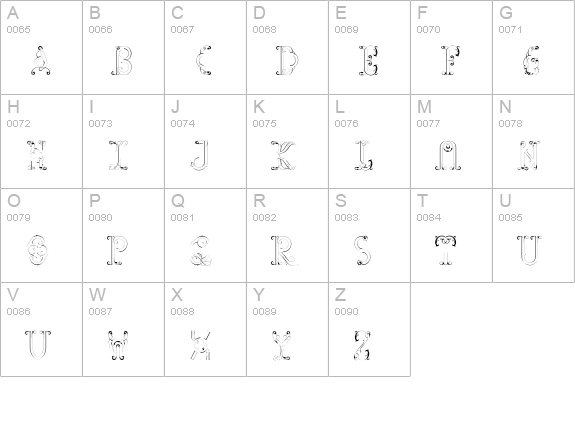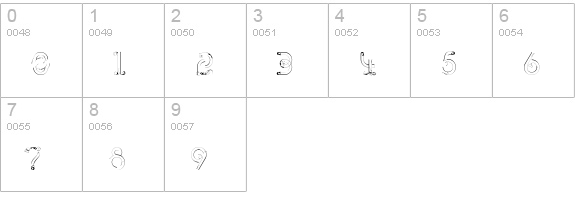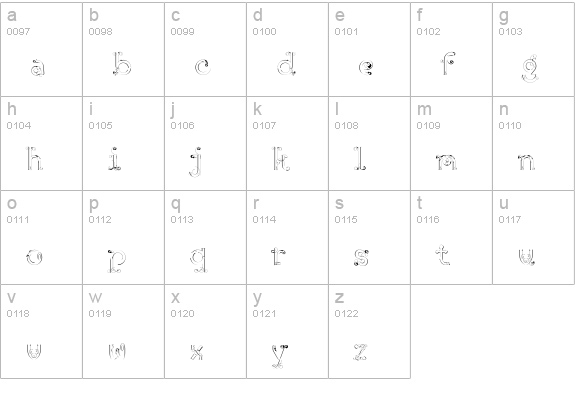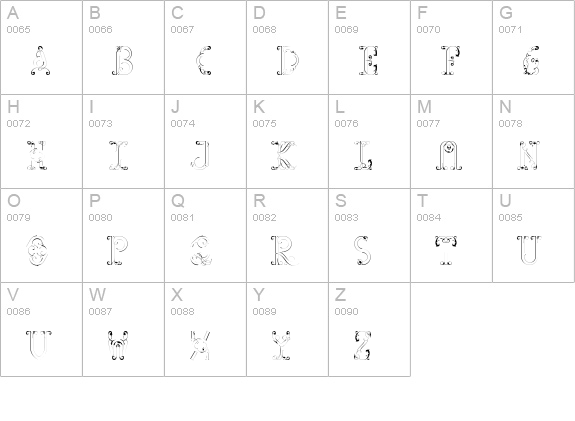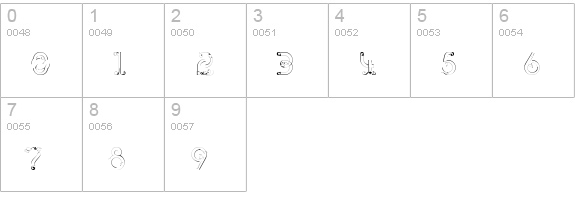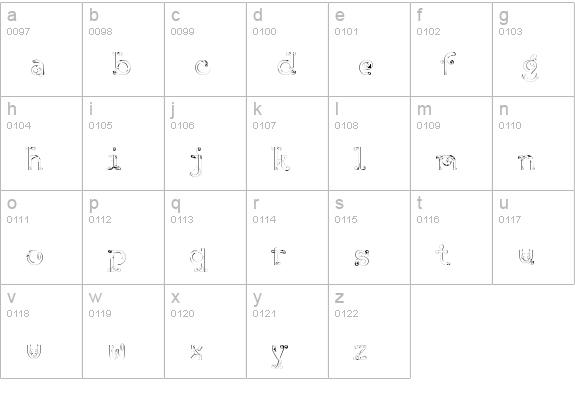
Missionary Font Details
Missionary font is a timeless and elegant typeface that exudes sophistication and charm. With its classic serifs and graceful curves, this font is perfect for adding a touch of refinement to any project. Whether you're designing a wedding invitation, creating a logo, or crafting a poster, Missionary font will elevate your work to new heights. And the best part? Missionary font is completely free to download at FontsMarket.com. You can access this stunning typeface without any cost, making it the ideal choice for designers on a budget. Don't miss out on the opportunity to enhance your designs with the beauty of Missionary font – download it today and let your creativity shine!